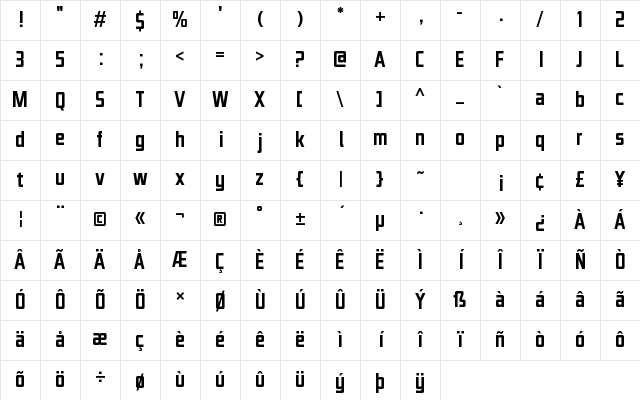
Aire Exterior Regular Free Font
Aire Exterior Regular
Designer: Jayvee Enaguas (HarvettFox96)
Complete Aire Exterior Regular glyph index. Displaying only characters natively supported by Aire Exterior Regular font.
Design Context for Aire Exterior
Aire Exterior is a composed and adaptable typeface that performs quietly and consistently across a wide range of design contexts.